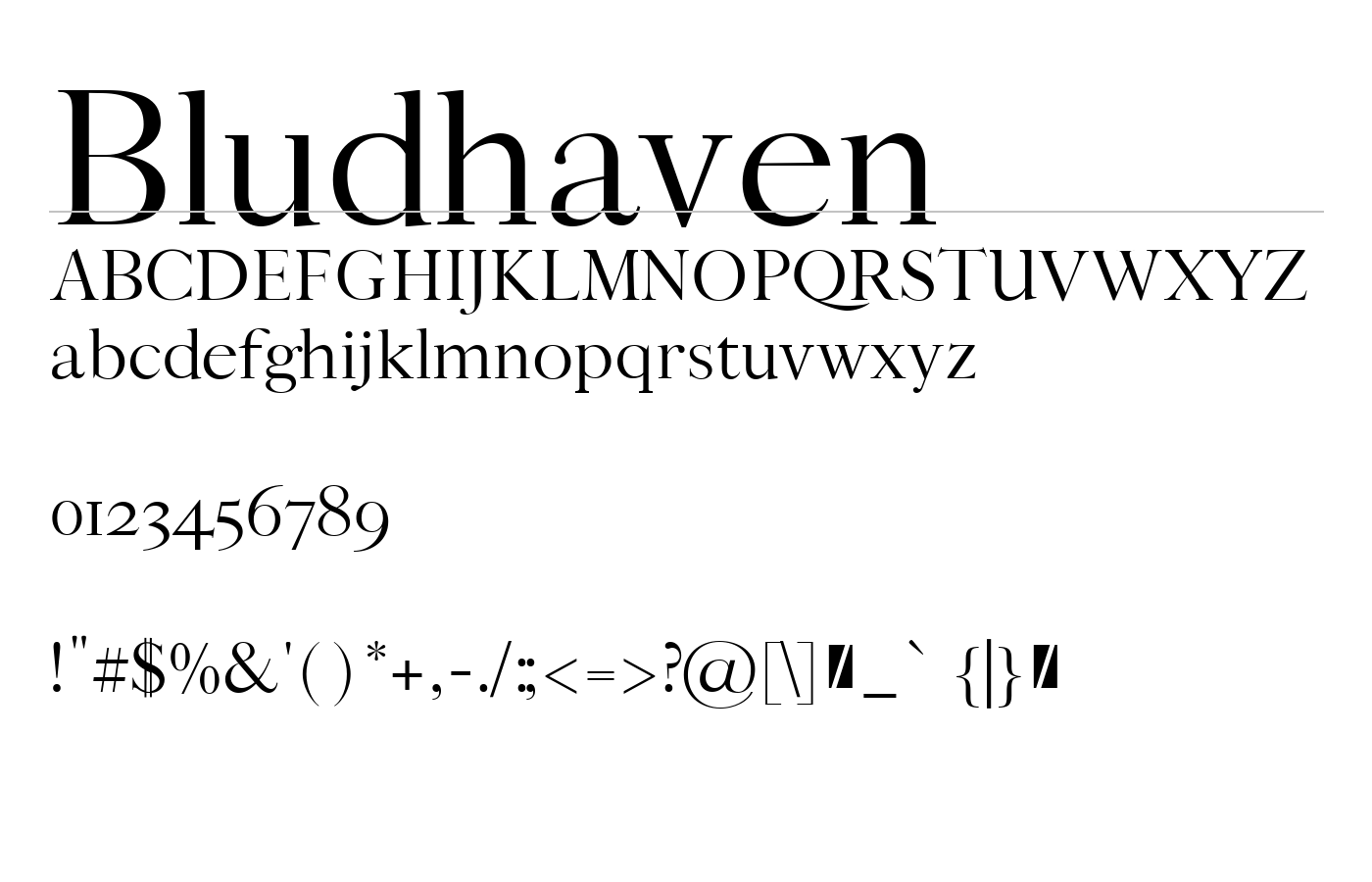
Bludhaven is an elegant serif font with a refined, high-contrast design that blends classic sophistication with modern clarity. Its tall, slender letterforms and delicate serifs convey a sense of luxury and professionalism, making it ideal for upscale branding, editorial headlines, and stylish invitations. This font's distinctive details and graceful proportions bring a timeless yet contemporary feel, perfect for projects that want to communicate elegance and reliability.
Bludhaven Font
About Bludhaven Font
| Designer | Marco Ballarè |